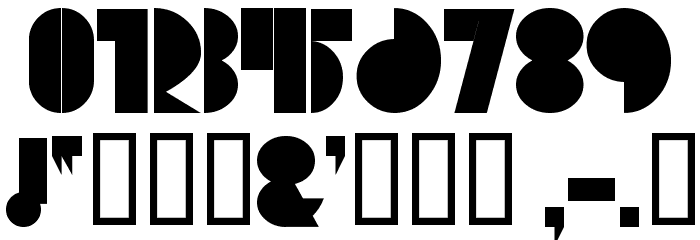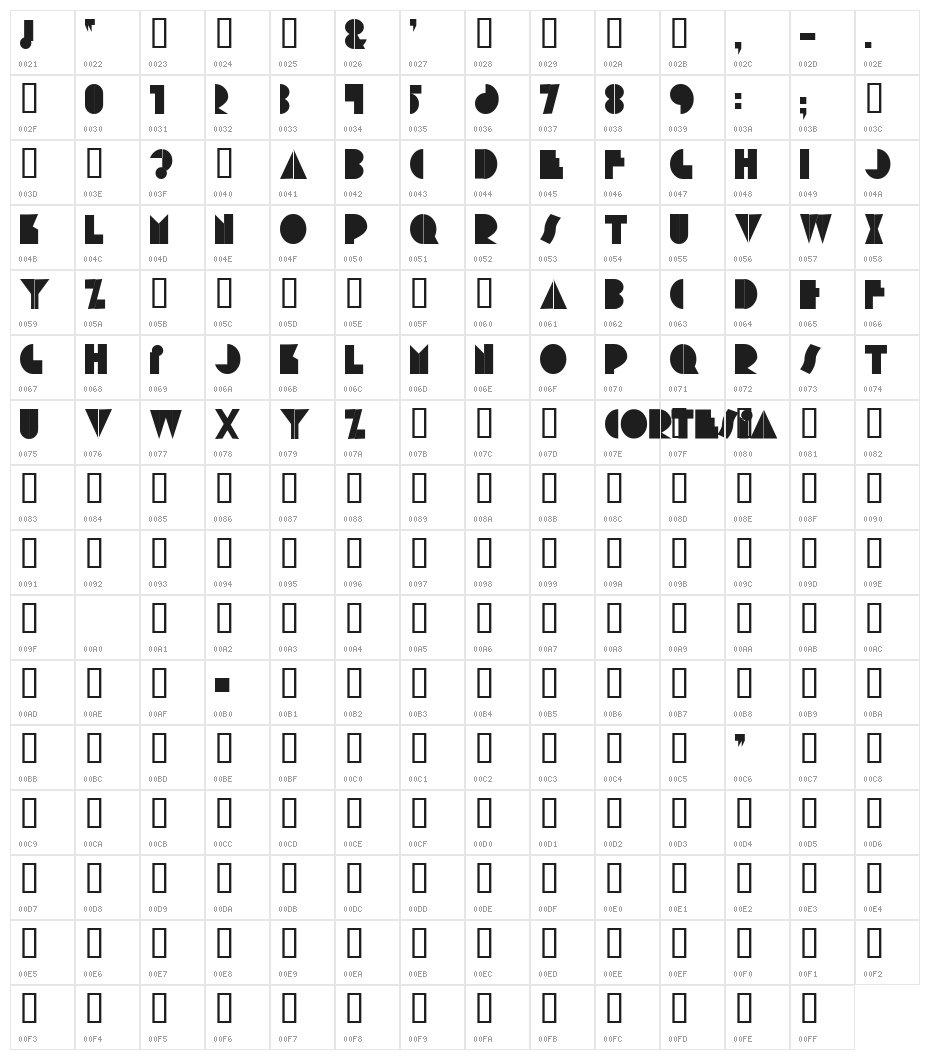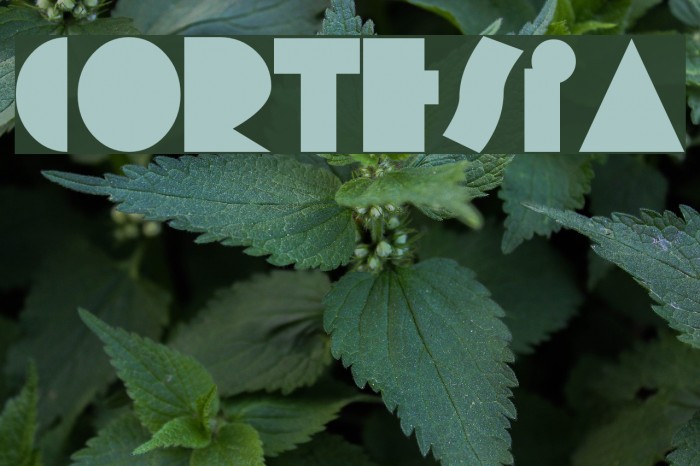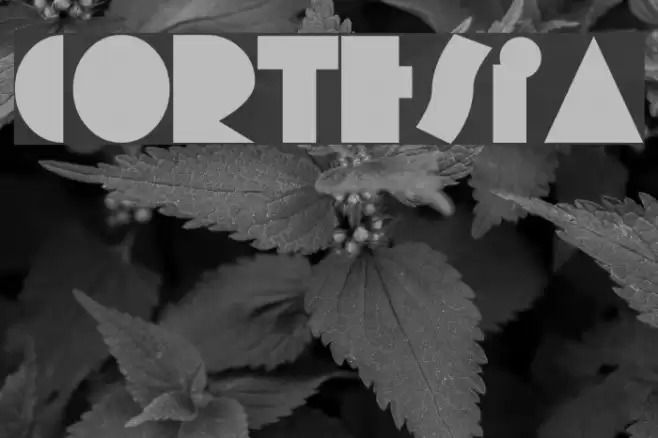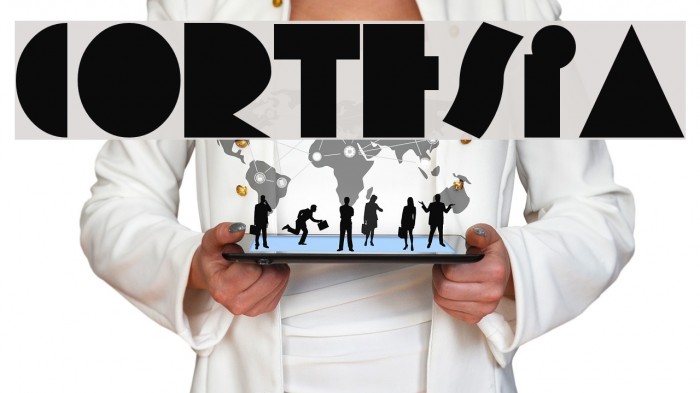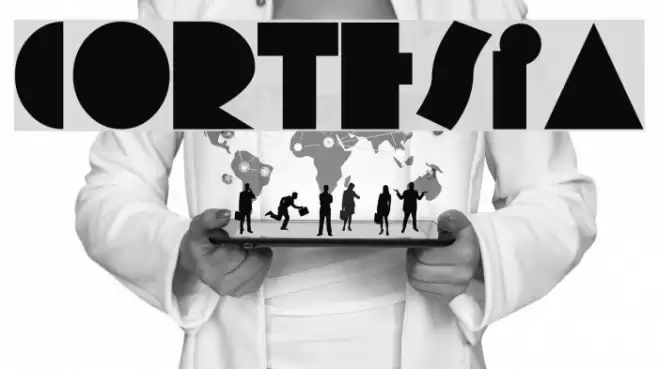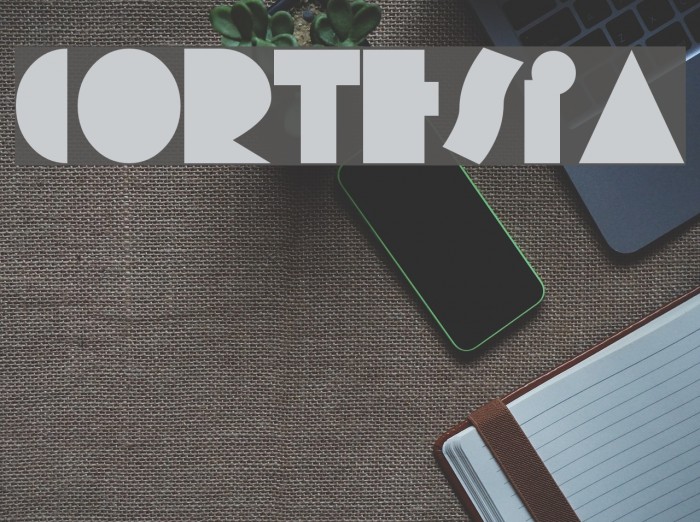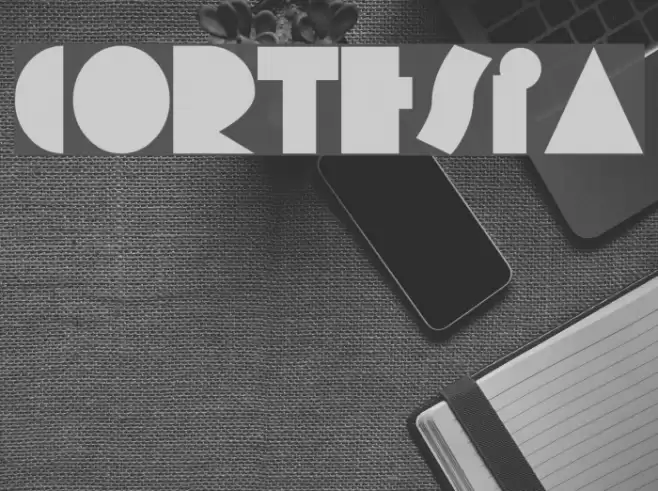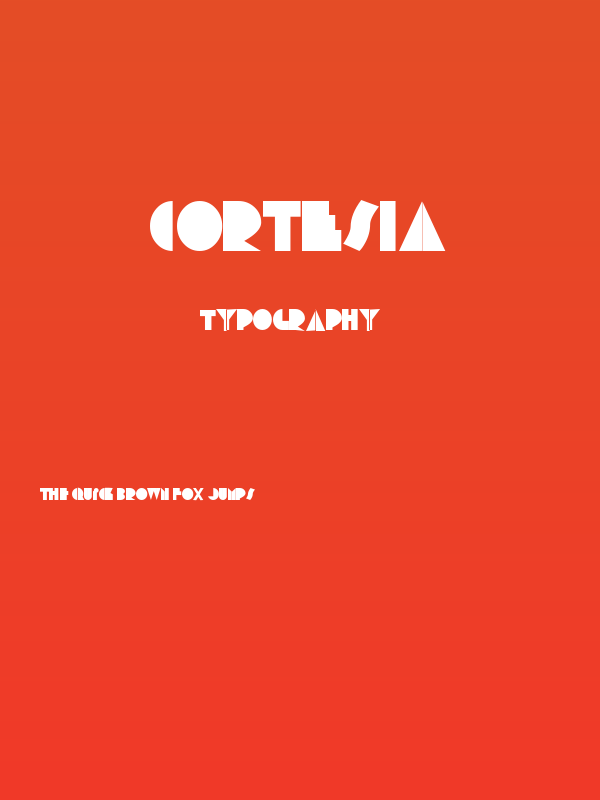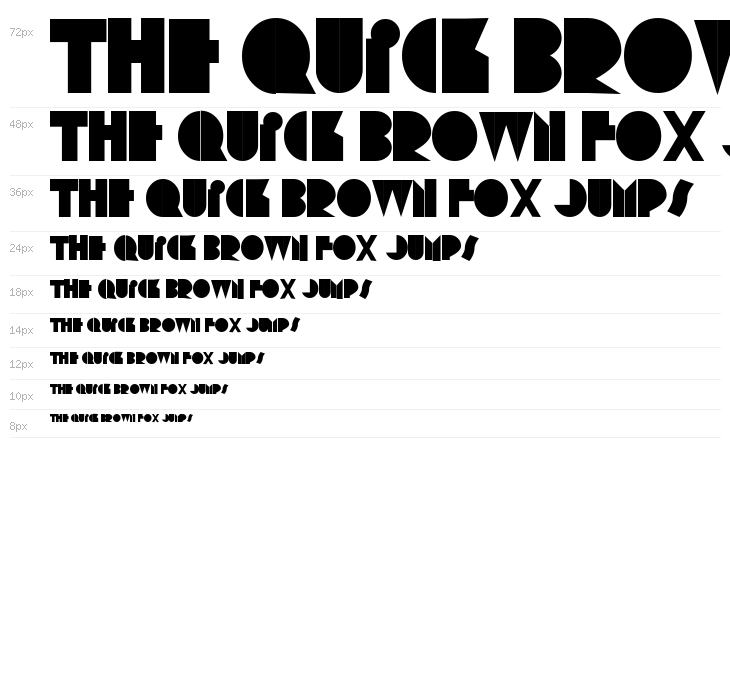
Cortesia Font
Cortesia Description
This font features a bold and geometric design, characterized by its use of solid shapes and sharp angles. The letters are constructed with a combination of circular and triangular elements, creating a unique and modern appearance. The uppercase and lowercase letters share a consistent style, with the lowercase being slightly smaller but maintaining the same geometric structure. Numbers and special characters are also designed with the same bold, geometric style, ensuring uniformity across all characters. The font's distinct look makes it suitable for attention-grabbing designs.
| Proposed Projects | Ideal for modern branding, poster designs, and headlines that require a strong visual impact. |